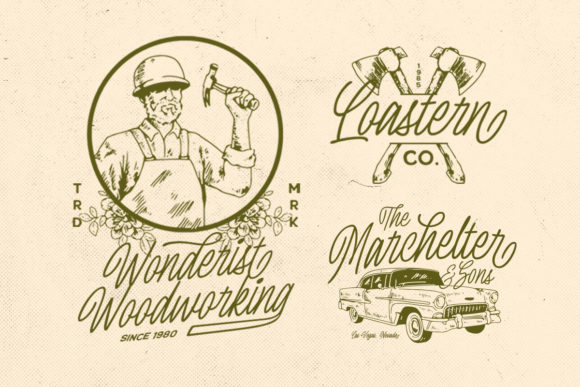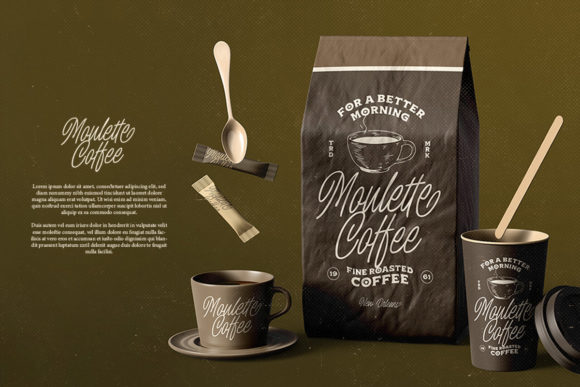
Krostenia Font
db-ku.com - Script & Handwritten -- Krostenia is a vintage styled, thin lettered and delicate script font. Incredibly versatile, this font fits a wide pool of designs, elevating them to the highest levels. Add this font to your favorite creative ideas and notice how it makes them come alive!